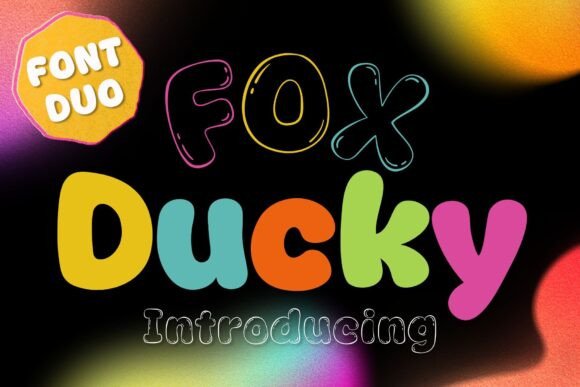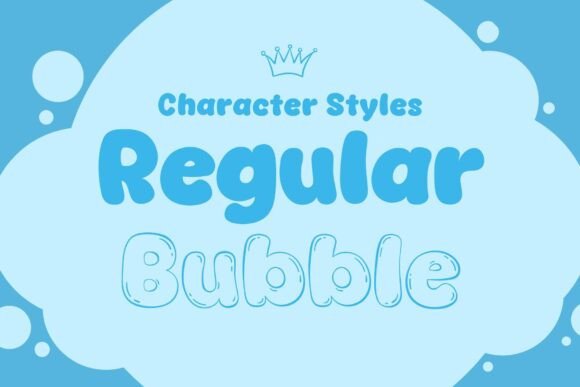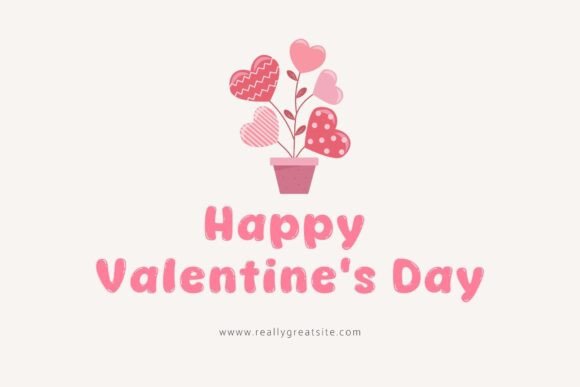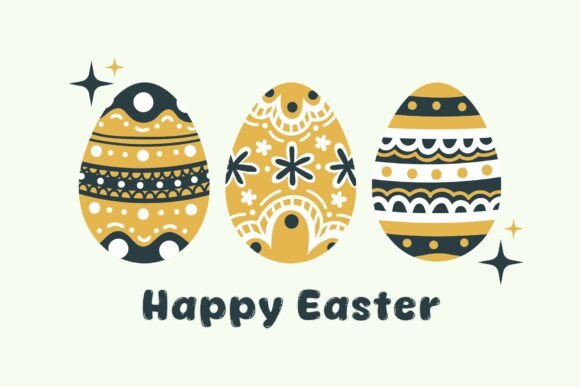
Fox Ducky Font: A Playful & Cute Display Font for Kids & Crafting!
About the Fox Ducky Font
Experience the unique personality of Fox Ducky Font, a font designed for impact. Fox Ducky is a cheerful and charming font duo that brings a burst of personality to your designs!
Ideal for greeting cards, children’s books, posters, party invitations, and branding that needs a fun, friendly vibe. With both Regular and Bubble styles, Fox Ducky gives you creative flexibility while keeping things super cute and approachable.
Let your words come alive with Fox Ducky – where creativity meets color and fun!
Fox Ducky excels in display applications such as headlines, logos for playful brands, and short-form text on packaging or posters. Its playful nature makes it unsuitable for body text or lengthy paragraphs; readability suffers at smaller sizes. Avoid using it in user interfaces or situations requiring high levels of legibility.
The bubbly, friendly personality of Fox Ducky pairs well with clean sans-serif fonts like Open Sans for a balanced contrast, or with a more geometric sans-serif like Montserrat for a modern feel. For a touch of elegance, consider pairing it with a delicate script font, though this should be used sparingly to avoid overwhelming the Fox Ducky’s charm.
Its overall aesthetic is best described as cheerful and approachable, lending itself to projects targeting younger audiences or brands emphasizing fun and friendliness.
Fox Ducky Font Usage Examples
Fox Ducky Font Example